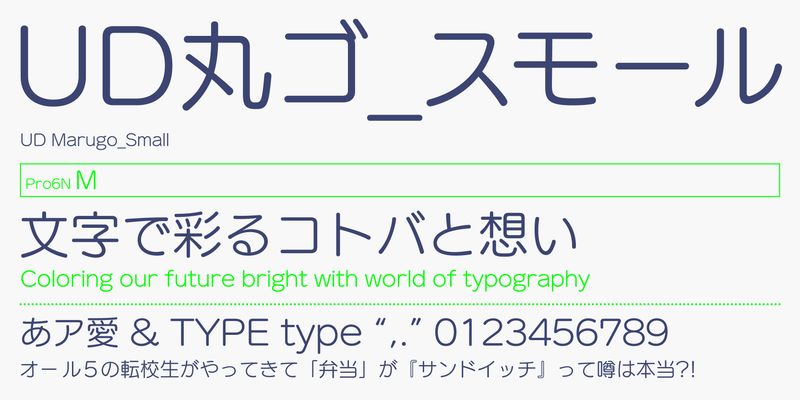
FOT-UDMarugo Small Pr6N Font Free Download is a rounded Japanese sans-serif typeface designed specifically for high readability in small text sizes and complex visual environments. Developed by Fontworks as part of their UD (Universal Design) series, this font prioritizes accessibility, clarity, and softness—making it ideal for signage, educational materials, user interfaces, and healthcare or public information content.
FOT-UDMarugo Small Pr6N Font Free Download features smooth, rounded terminals and open counters, which enhance legibility even at reduced sizes or on low-resolution screens. It supports the Adobe-Japan1-6 character set (Pr6N), offering an extensive range of kanji, kana, and Latin characters—perfect for comprehensive multilingual use.
Its friendly appearance and easy-to-read structure make it suitable for designs aimed at a broad audience, including children, seniors, and users with visual impairments. It pairs beautifully with other Universal Design fonts for a consistent and inclusive typographic system.